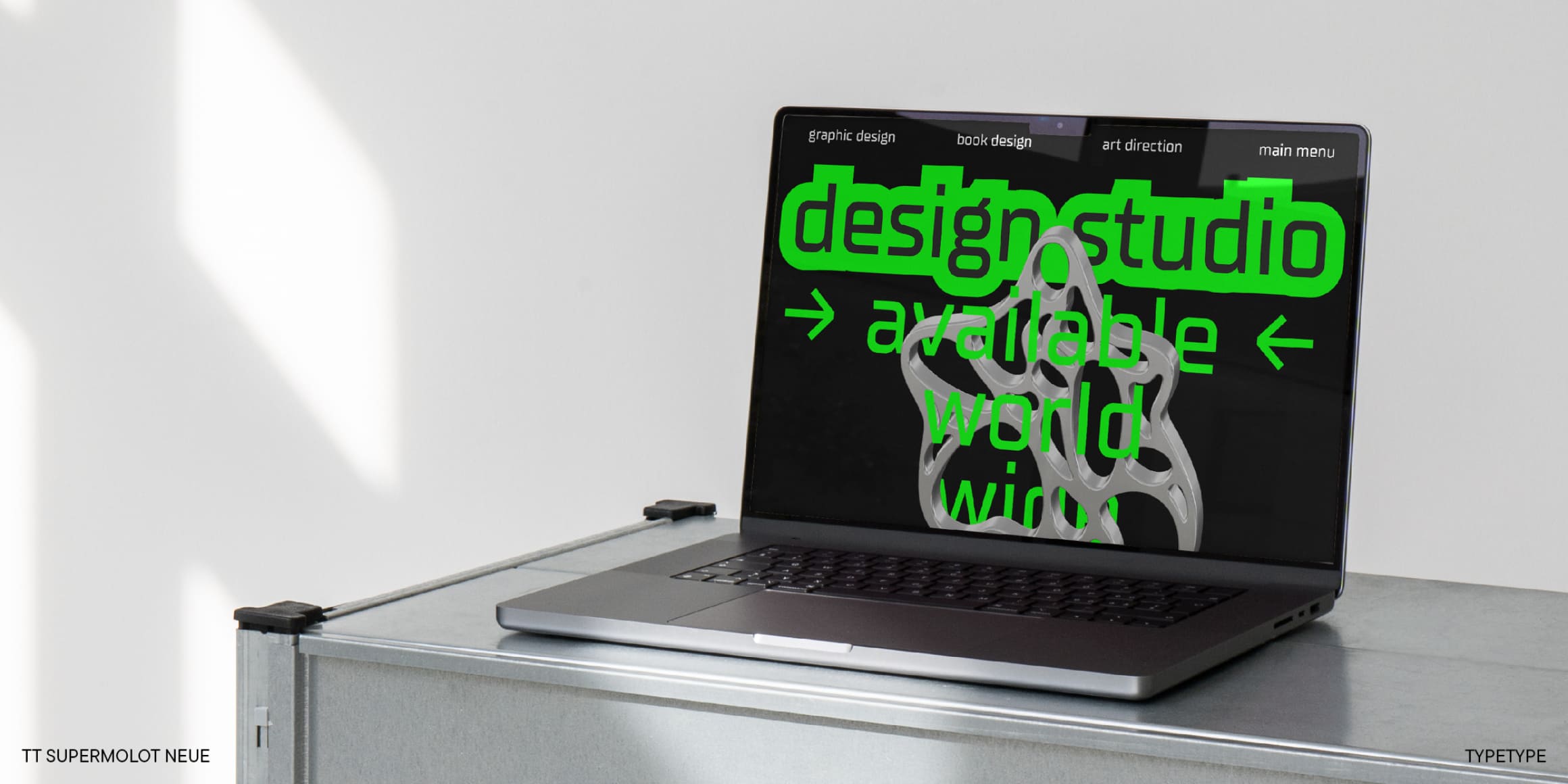
TT Supermolot Neue reveals its full potential in medium and large point sizes while staying readable in small point sizes as well. This typeface was designed specifically for video game interfaces. However, its application range goes far beyond just video games. TT Supermolot Neue will be an equally perfect match for technology, the automotive industry, architecture, and design projects. It can also become part of the street art museum’s identity or a sports apparel brand—it all depends on your imagination.